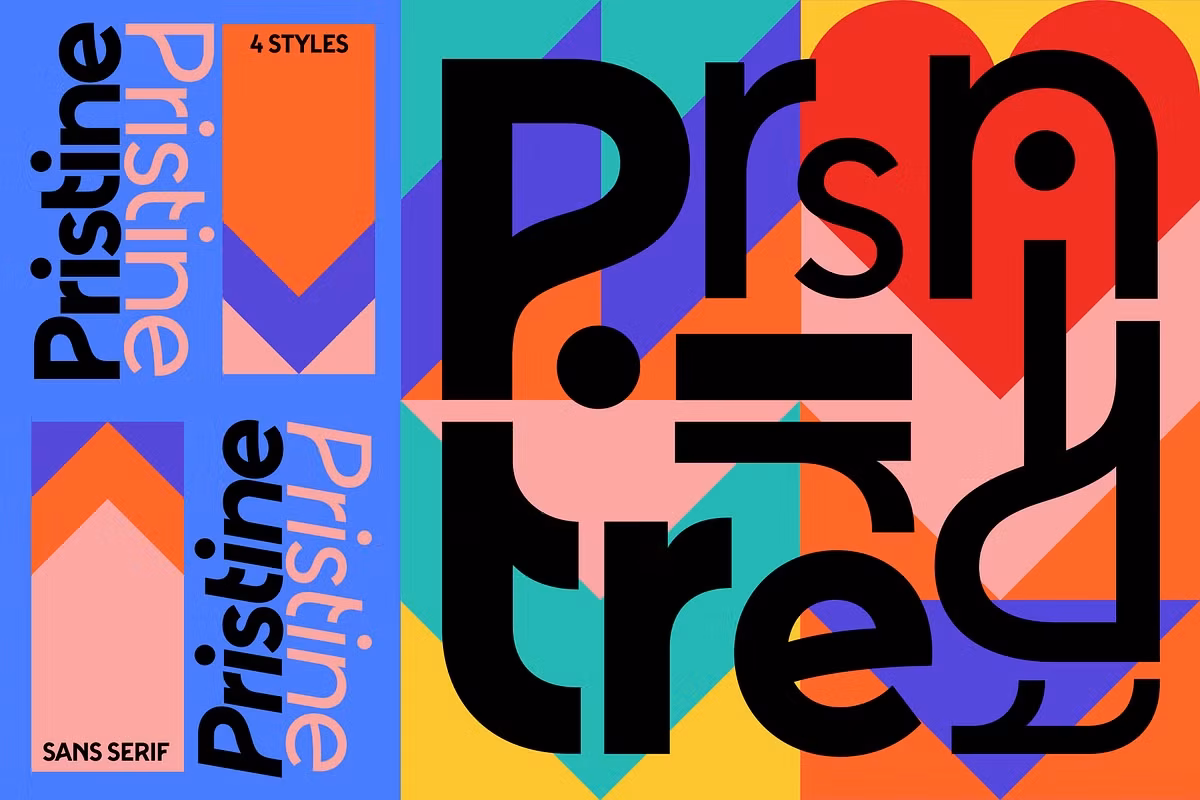
This refined font is perfect for luxury brand identities, high-end fashion magazines, premium cosmetics packaging, sophisticated web design, elegant corporate communications, upscale hospitality branding, fine jewelry marketing, and minimalist architectural signage. Its clean character makes it ideal for projects requiring pure sophistication and flawless visual presentation.
Pristine Elegant Sans Serif Font is exciting because it achieves perfect balance between minimalist clarity and sophisticated elegance with letterforms that embody visual purity and exceptional craftsmanship. The font features immaculate proportions, pristine geometry, and subtle refinements that create an atmosphere of luxury without ostentation. Its flawless execution ensures professional credibility while maintaining the understated elegance that defines truly premium design.
The Pristine Elegant Sans Serif Font family typically includes comprehensive weight variations from thin to bold, along with matching italics and extended character sets. Many versions feature stylistic alternates, refined ligatures, and OpenType features that enhance its versatility for luxury applications.
Whether you're developing premium brand campaigns, sophisticated digital experiences, or luxury print materials, Pristine Elegant Sans Serif Font Free Download provides immaculate sophistication with contemporary functionality. This typeface transforms standard communications into refined statements that appeal to discerning audiences who appreciate perfect execution and understated luxury. Its versatile character ensures consistent performance across all media while adding distinctive elegance to brands that demand the highest standards of visual quality and Pristine Elegant Sans Serif Font Free Download presentation excellence.